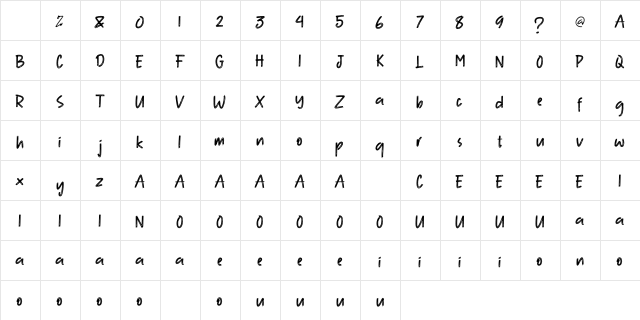
SpiderBrush Regular
Design Context for SpiderBrush Typeface
SpiderBrush flows with the natural rhythm of handwritten lettering, making it ideal for designs that call for warmth and personal expression.